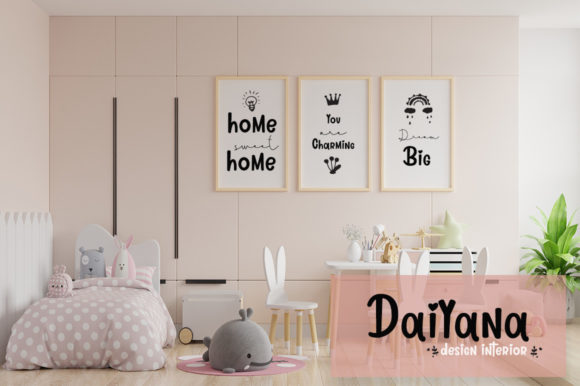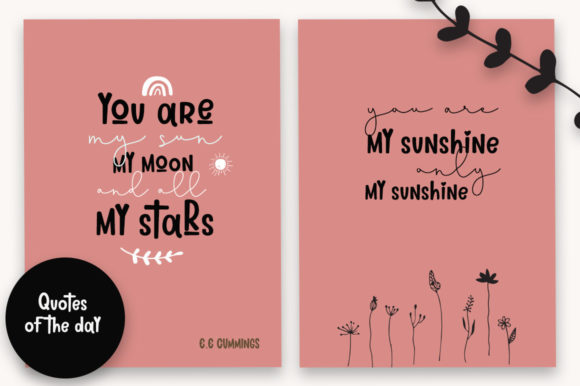
Lovely Pinkmatte Font
db-ku.com - Script & Handwritten -- Lovely Pinkmatte is an elegant and dainty duo font (handwritten and display), that features sweet and delicate swashes. This original look will appeal to a wide range of crafty ideas, from letterheads and titles, to stationery. Lovely Pinkmatte is PUA encoded which means you can access all of the glyphs and swashes with ease!